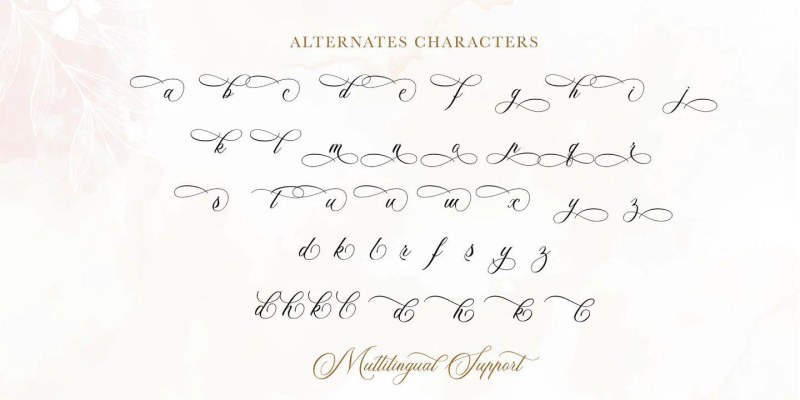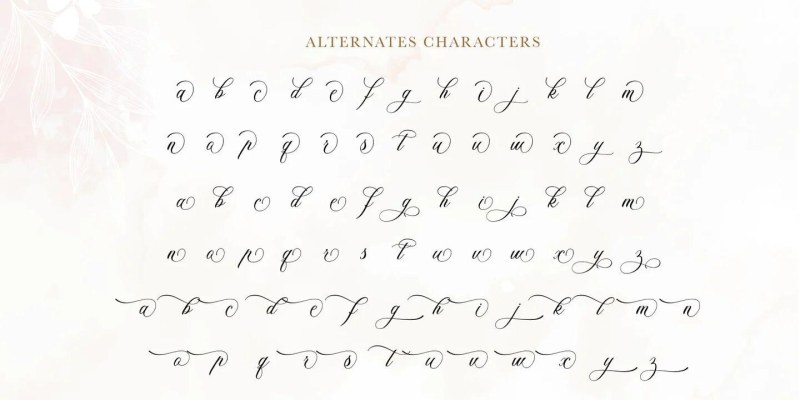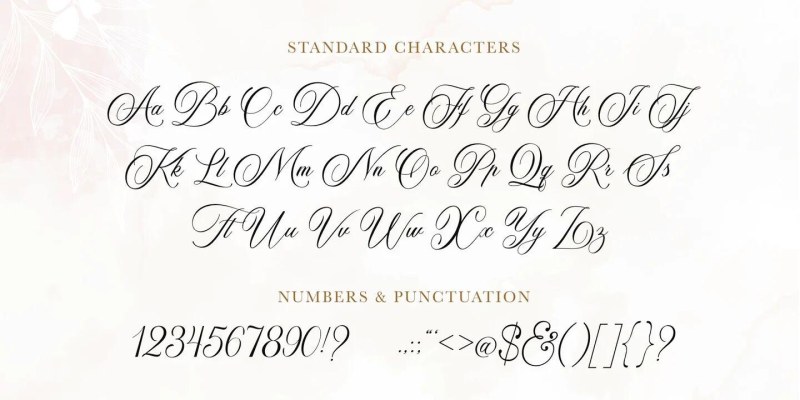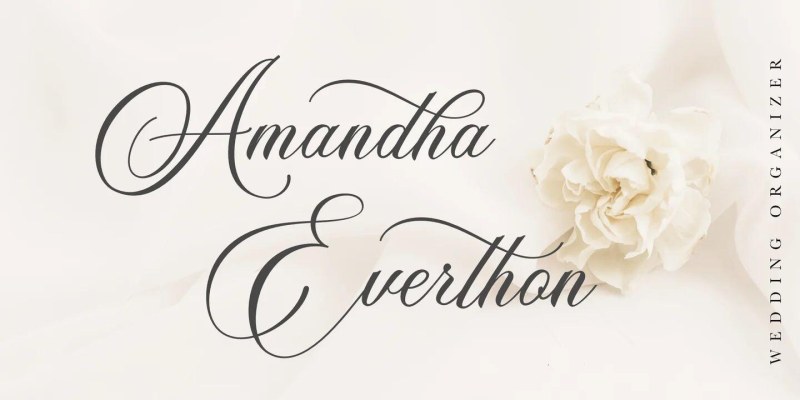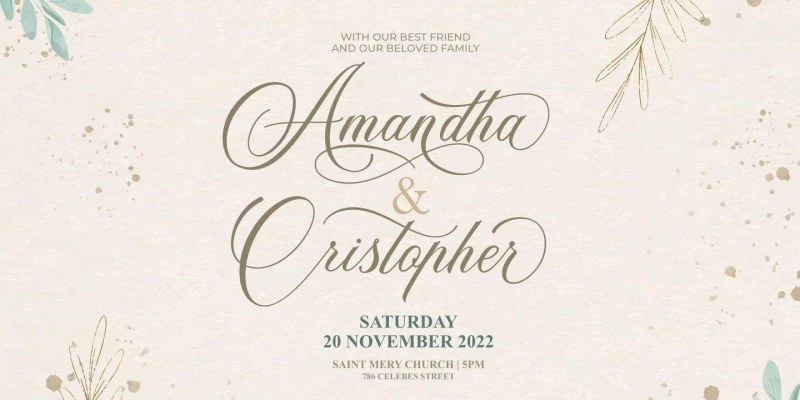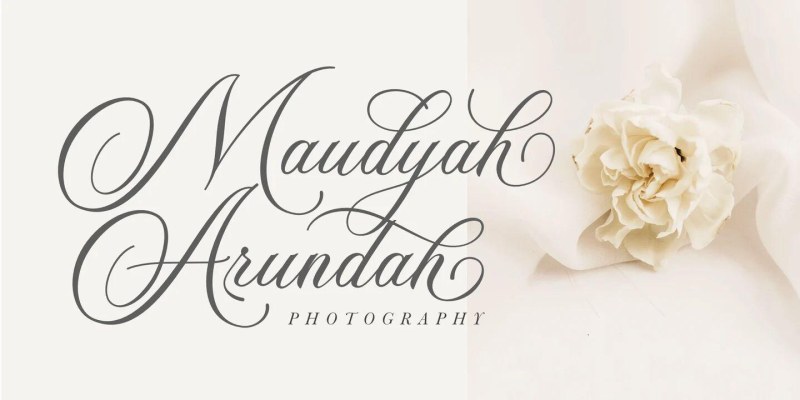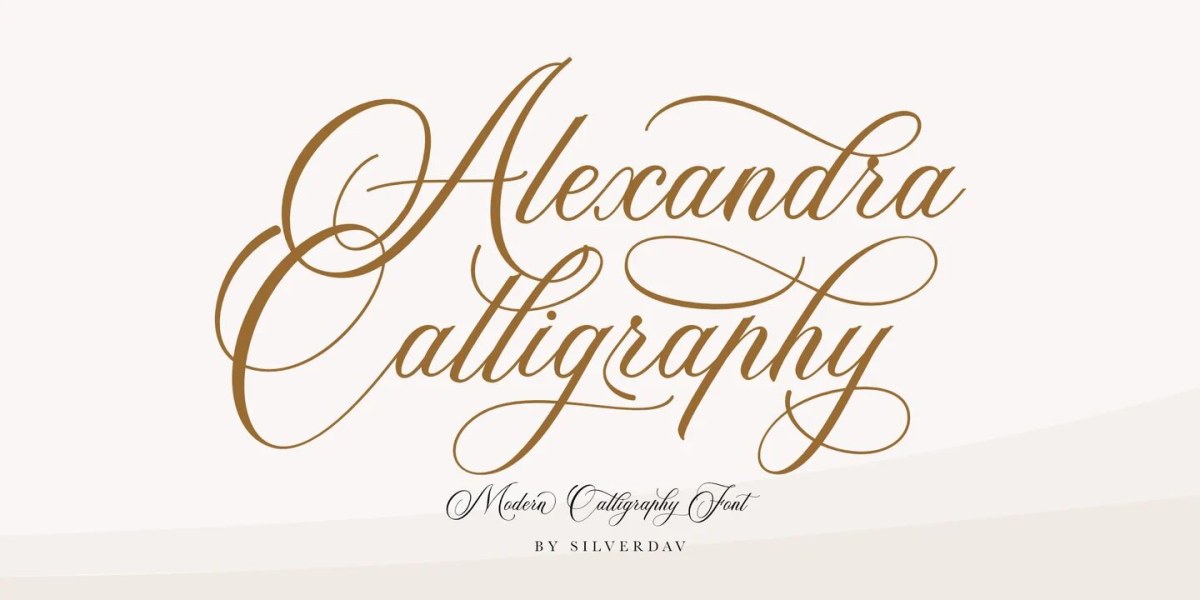
Alexandra Calligraphy Font
Alexandra Calligraphy is a unique calligraphy font, created to complement your designs and make your designs beautiful and more attractive. Alexandra Calligraphy is very well made, with very neat strokes that add a luxurious impression, there are many lowercase Alternate letters that you can use to enhance your design, this is really charming, please try it yourself.
Alexandra Calligraphy is perfect for Branding, Logos, Wedding Invitations, Quotes, Magazines, and many more.
Alexandra Calligraphy Font is a Calligraphy Fonts font that brings a professional and versatile look to your projects. Alexandra Calligraphy is a unique calligraphy font, created to complement your designs and make your designs beautiful and more attractive.